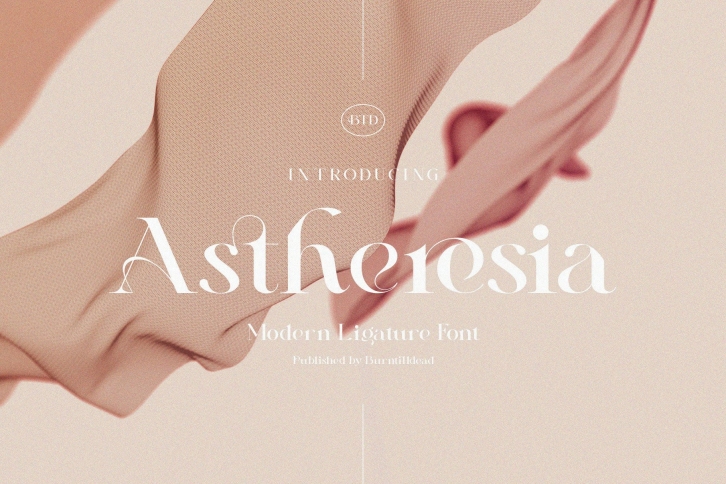
Astheresia is a sophisticated, charming serif font with a fashionable touch. Specially designed for luxury, elegant, feminine projects, this font is perfectly suitable for creating modern, chic designs. This font is PUA encoded which means you can access all the glyphs and ligatures with ease!